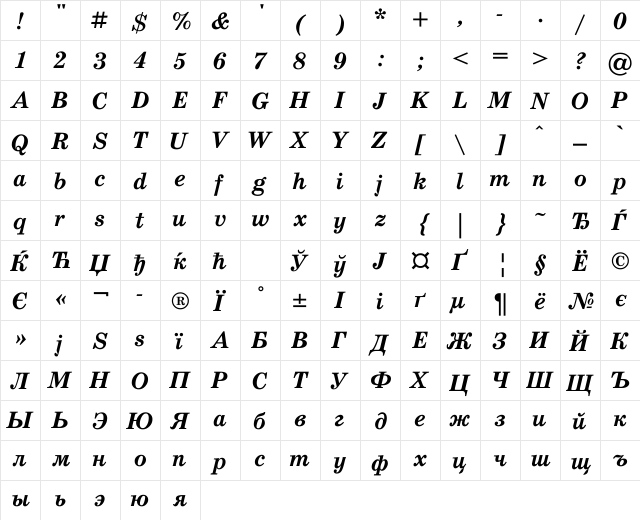
SchoolBookAC BoldItalic Font Preview
Design Context for SchoolBookAC Typeface
SchoolBookAC takes a measured approach to typography — its balanced proportions and neutral character make it a reliable workhorse for both digital and print work. The slanted form adds forward momentum and visual energy. The heavy weight commands attention and anchors typographic hierarchies.
Pro Tip: Try SchoolBookAC for annotation and caption copy alongside an upright companion — the contrast in angle creates a dynamic but ordered typographic system.